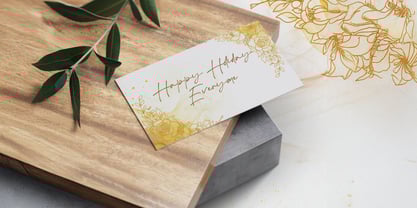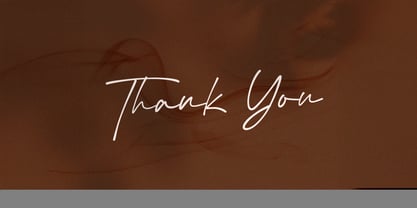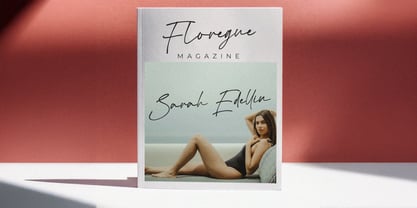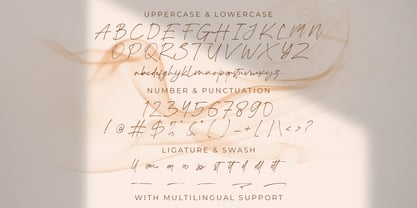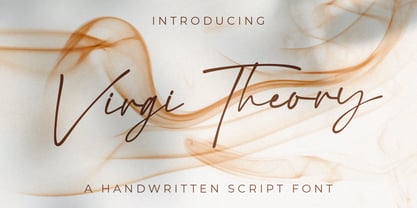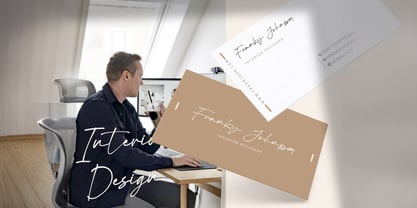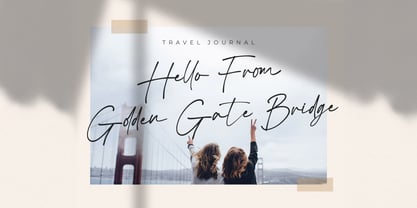
Virgi Theory
by Stringlabs Creative Studio
The Virgi Theory Font Family was designed by Virgiawan Listanto and published by Stringlabs Creative Studio. Virgi Theory contains 1 styles.
Virgi Theory is a modern handwritten font that blends effortless style with personal flair. Its fluid lines, smooth curves, and natural rhythm give your text a clean yet expressive look perfect for designs that aim to feel both casual and confident. Whether you're working on branding, social media content, or creative quotes, Virgi Theory adds a touch of personality that’s fresh, elegant, and easy to love.
Designers: Virgiawan Listanto
Publisher: Stringlabs Creative Studio
Foundry: Stringlabs Creative Studio
Design Owner: Stringlabs Creative Studio